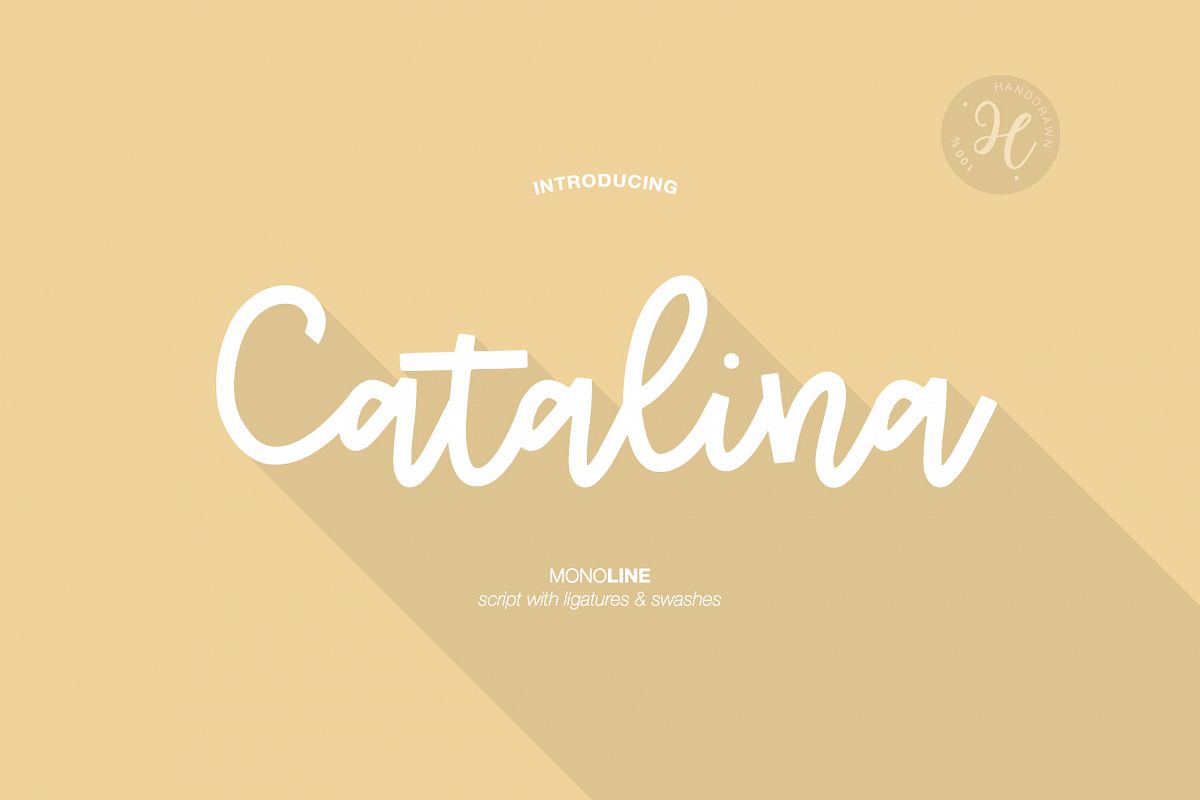
CATALINA MONOLINE handwritten font
Catalina
Hello dears! This is my new unique fancy monoline script. Here is that: floating baseline, ligatures and multilingual support :)
Catalina Monoline will look beautiful on holiday invitations, wedding invites and stationery, logos, and more.